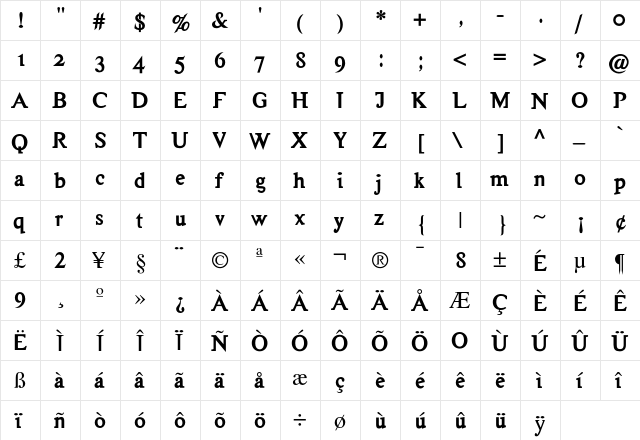
HardTimes Bold
Design Context for HardTimes Typeface
HardTimes is a composed and adaptable typeface that performs quietly and consistently across a wide range of design contexts. The heavy weight commands attention and anchors typographic hierarchies.